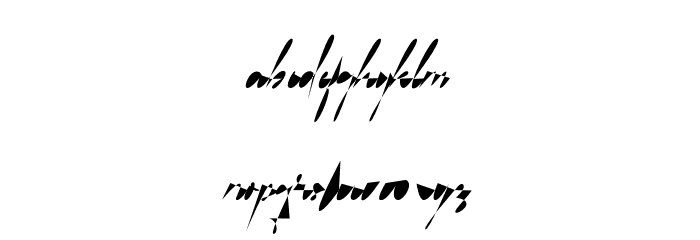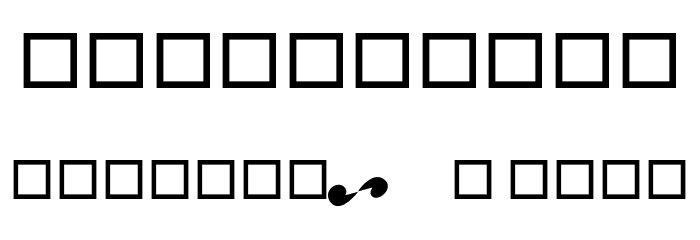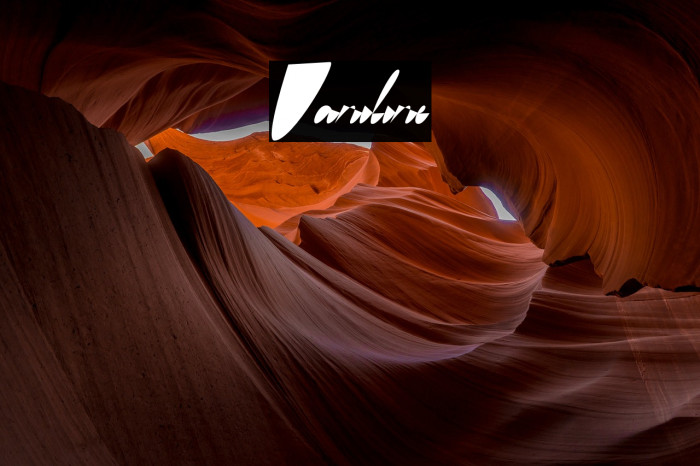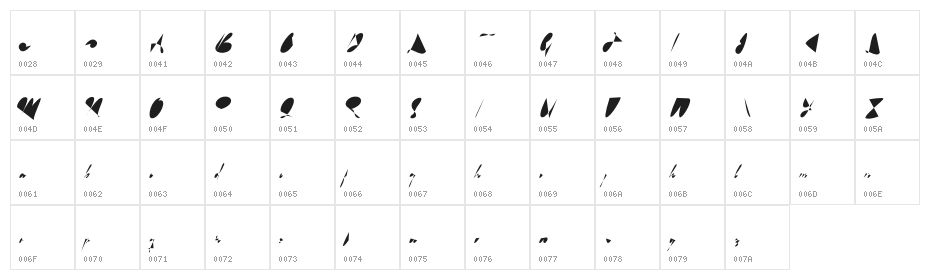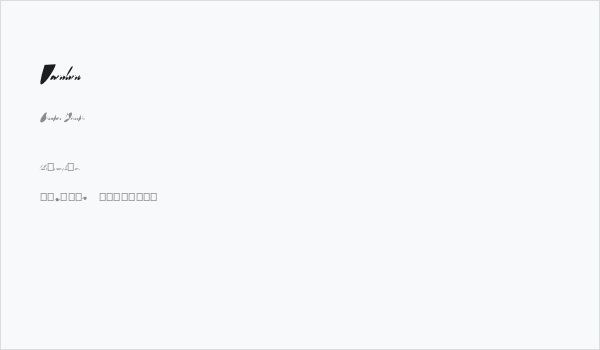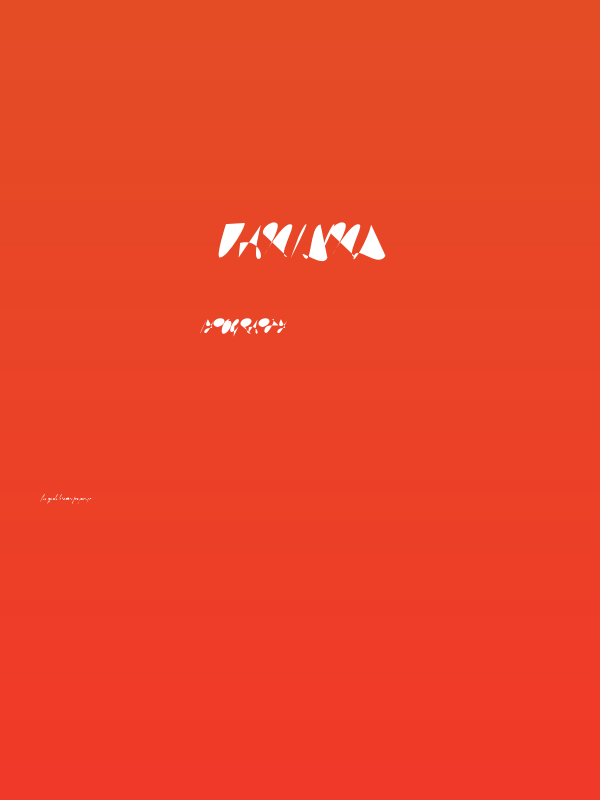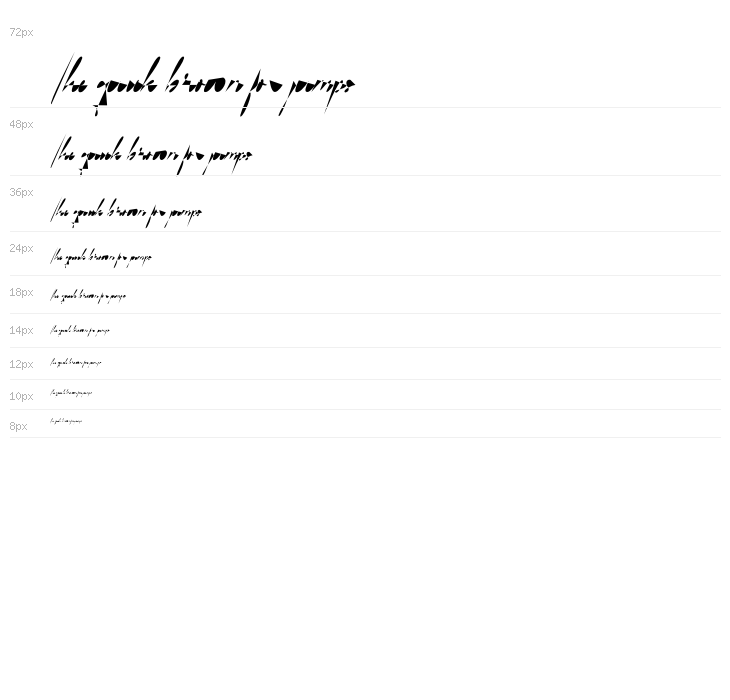
Vaniline Font
This font features a highly stylized, abstract design with bold, sweeping strokes and sharp angles. The uppercase letters are particularly striking, with a modern, artistic flair that suggests movement and energy. The lowercase letters maintain this dynamic style, though they are slightly more condensed. The overall appearance is both dramatic and elegant, making it suitable for creative and expressive projects. The font lacks traditional readability, focusing instead on making a visual impact. It does not include standard numerals or special characters, emphasizing its decorative nature.
A bold, abstract font with sweeping strokes and sharp angles, ideal for artistic projects.
- Proposed Projects: Ideal for artistic posters, album covers, or any project requiring a bold, expressive typeface.
- Character Spacing: Tight
- Overall Style: Modern, Artistic
- Use Case: Logos, Headlines